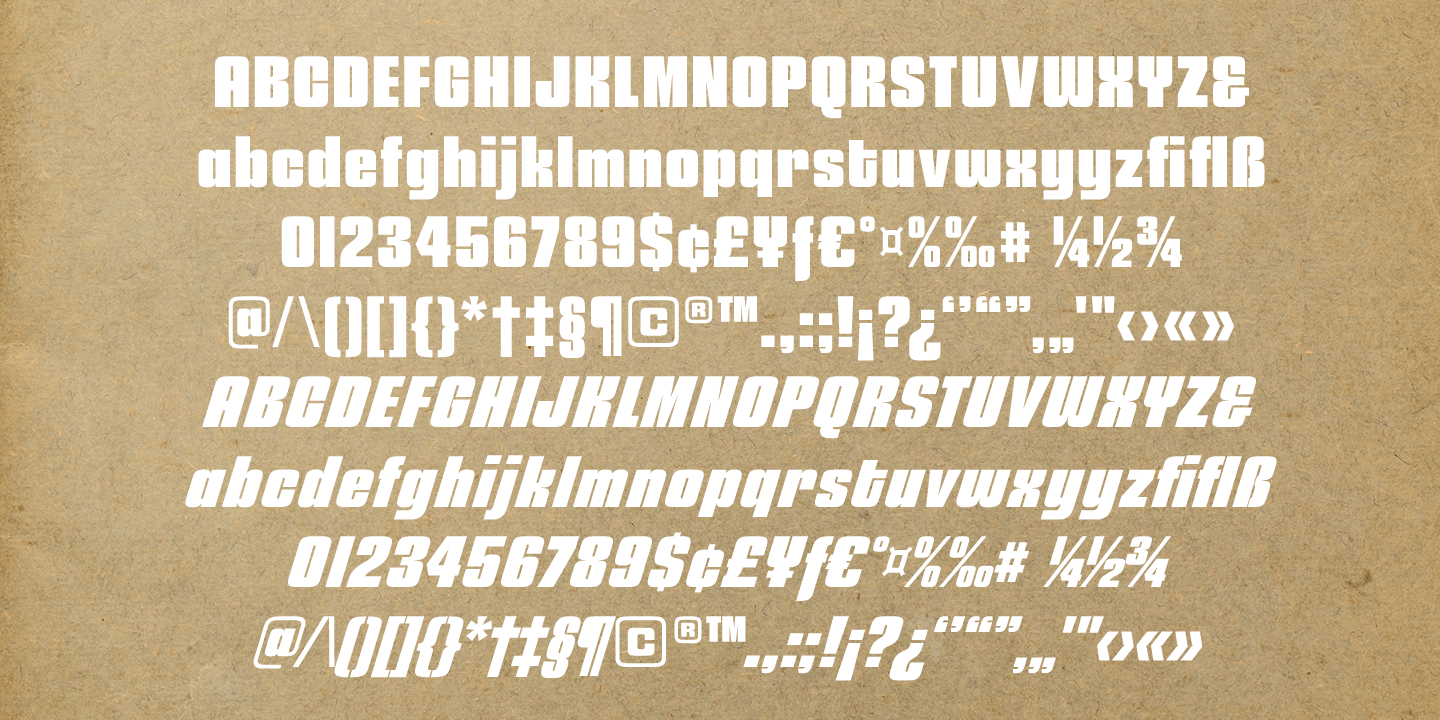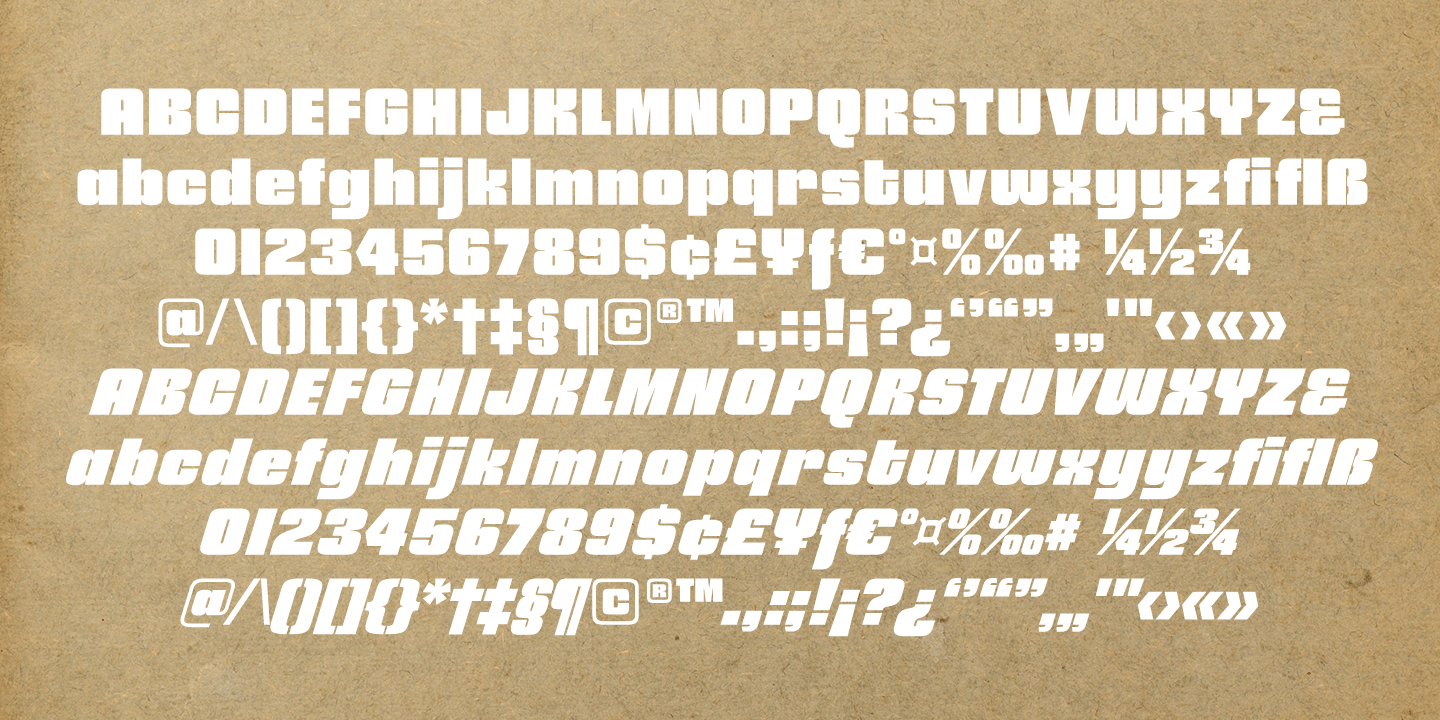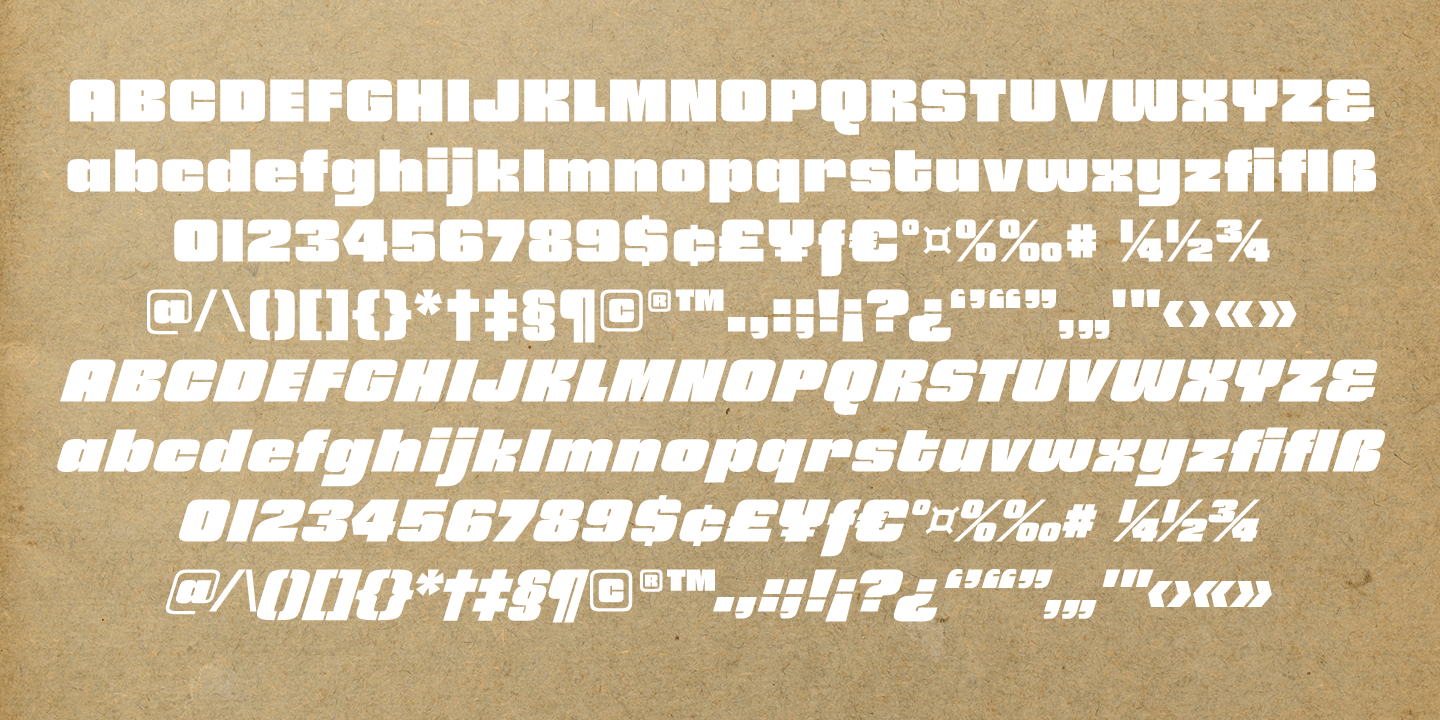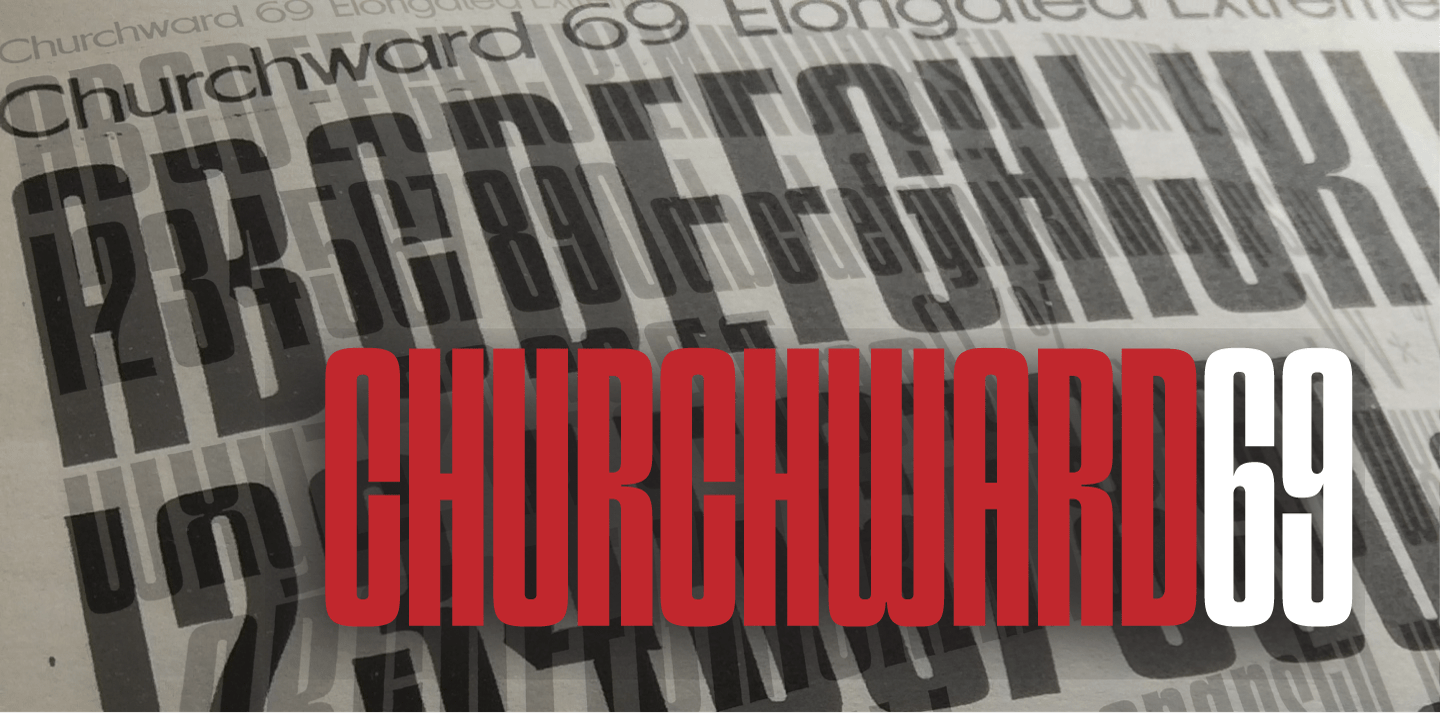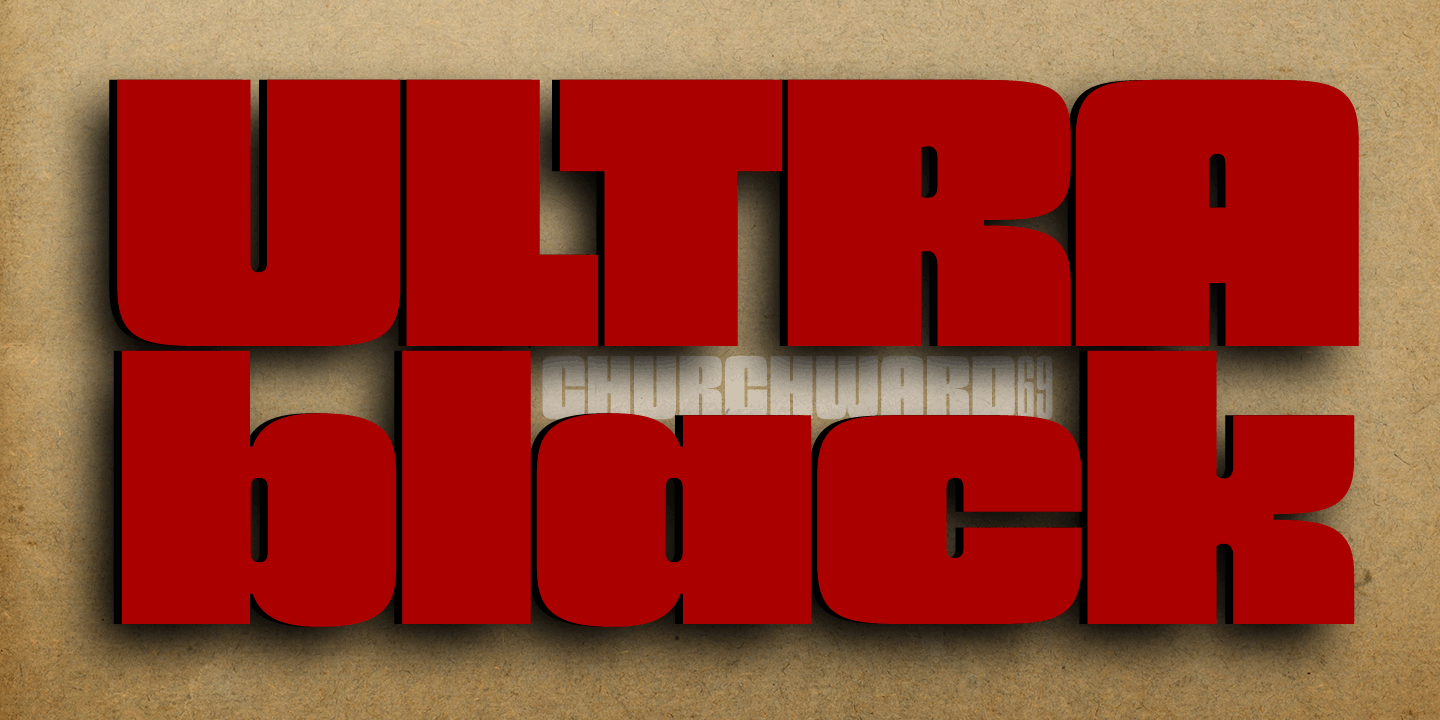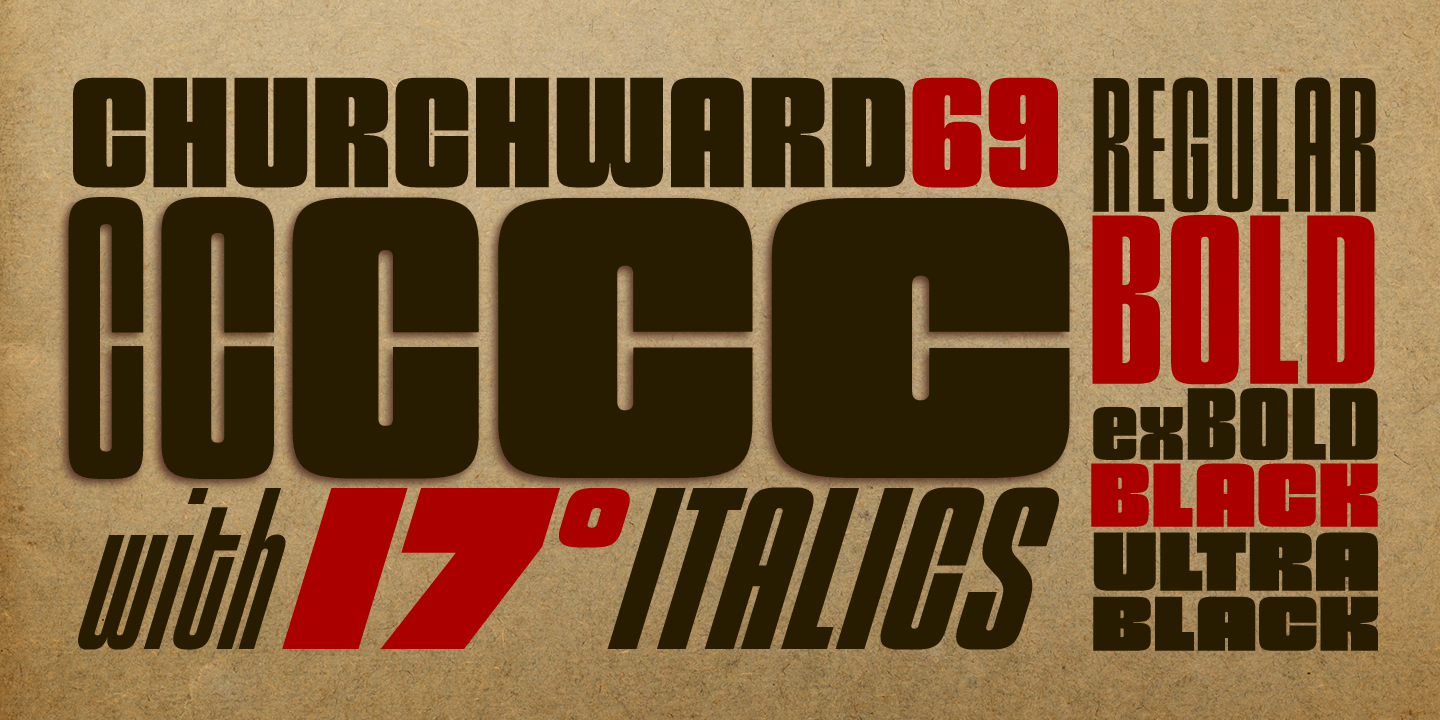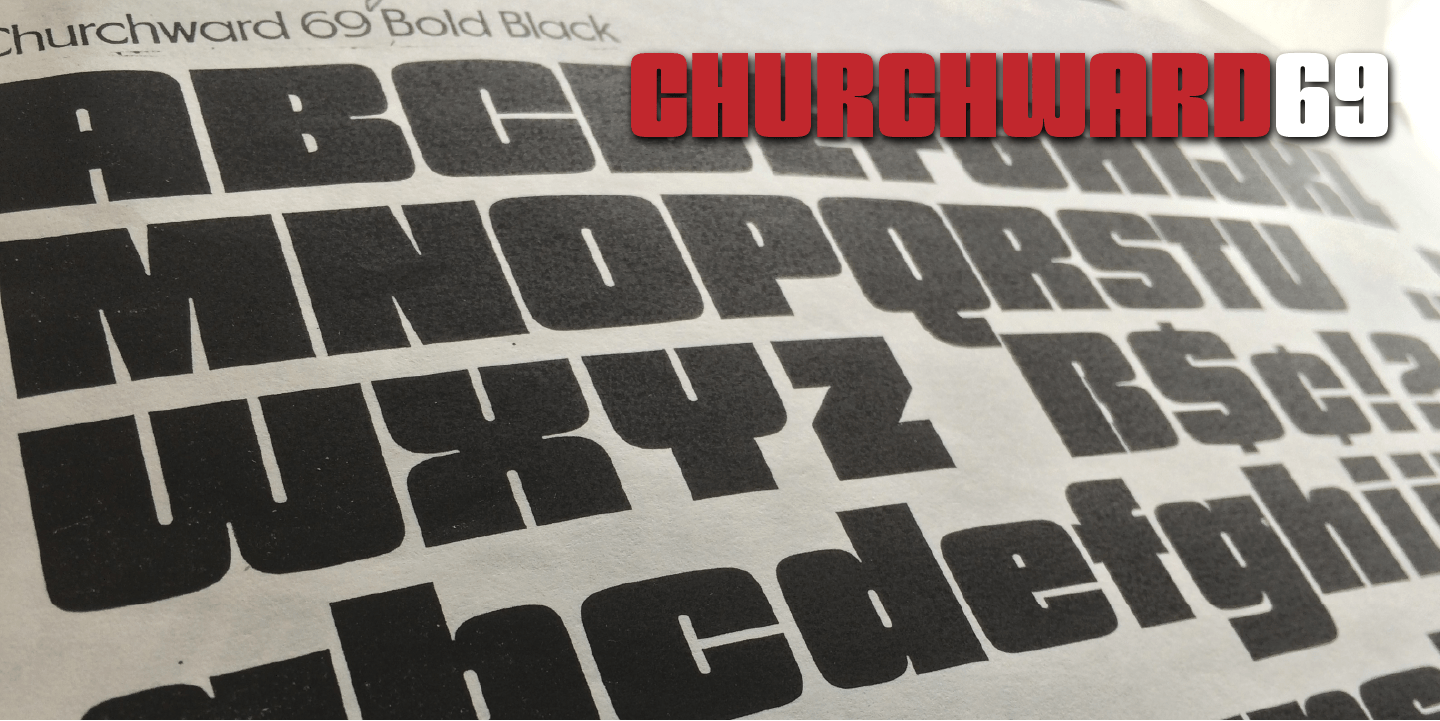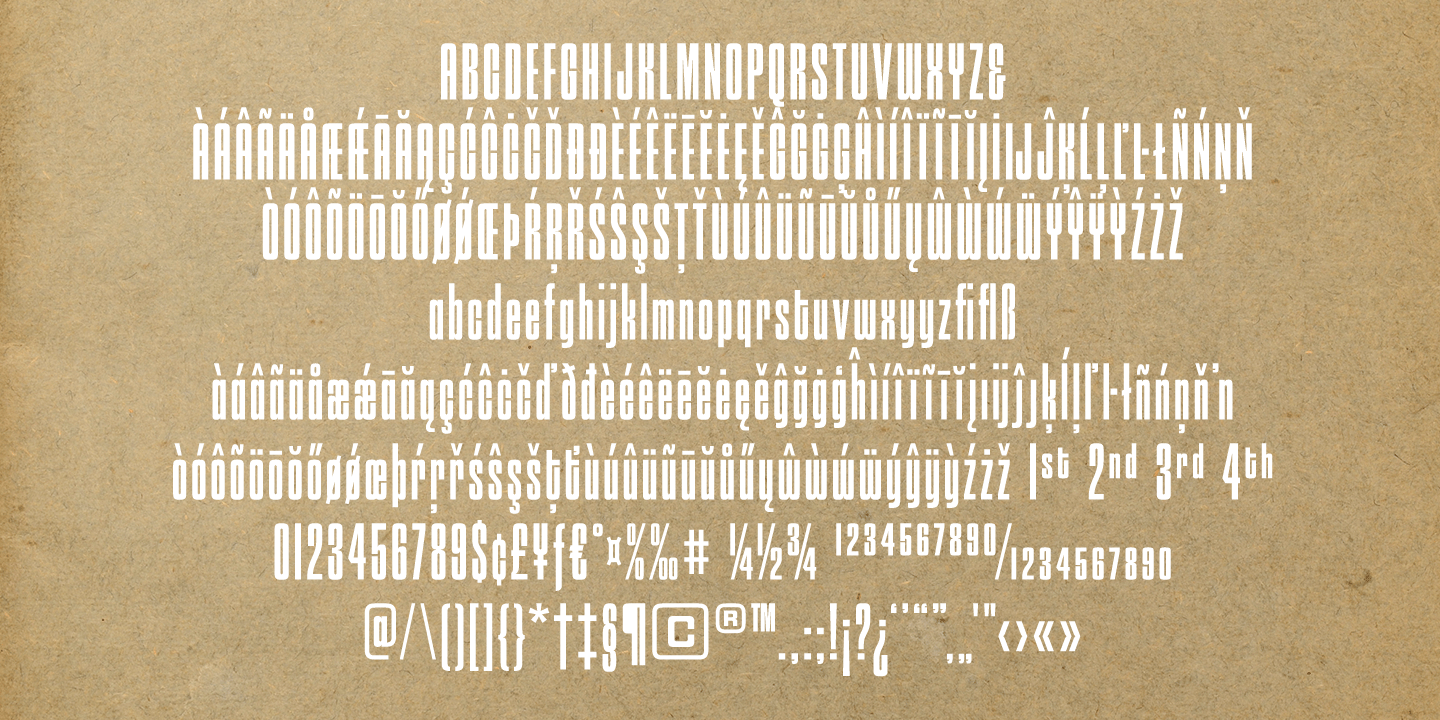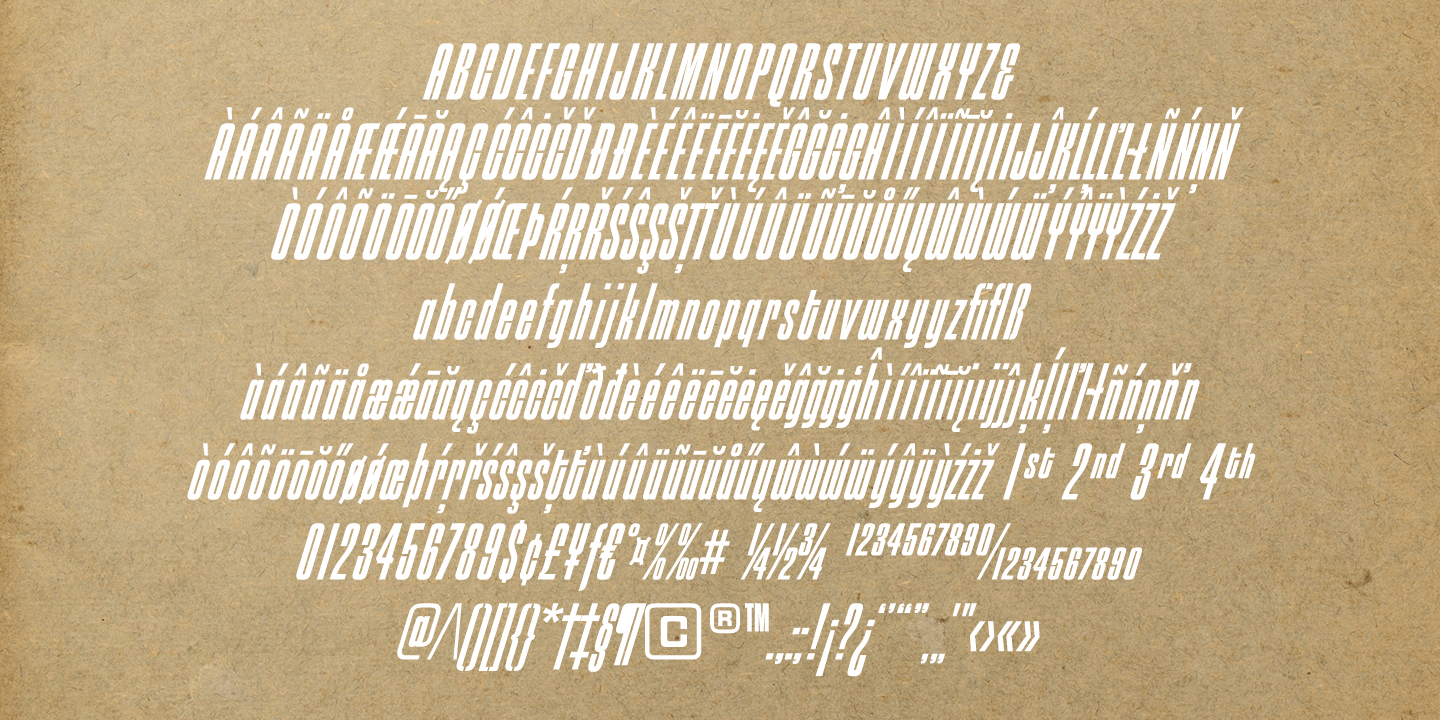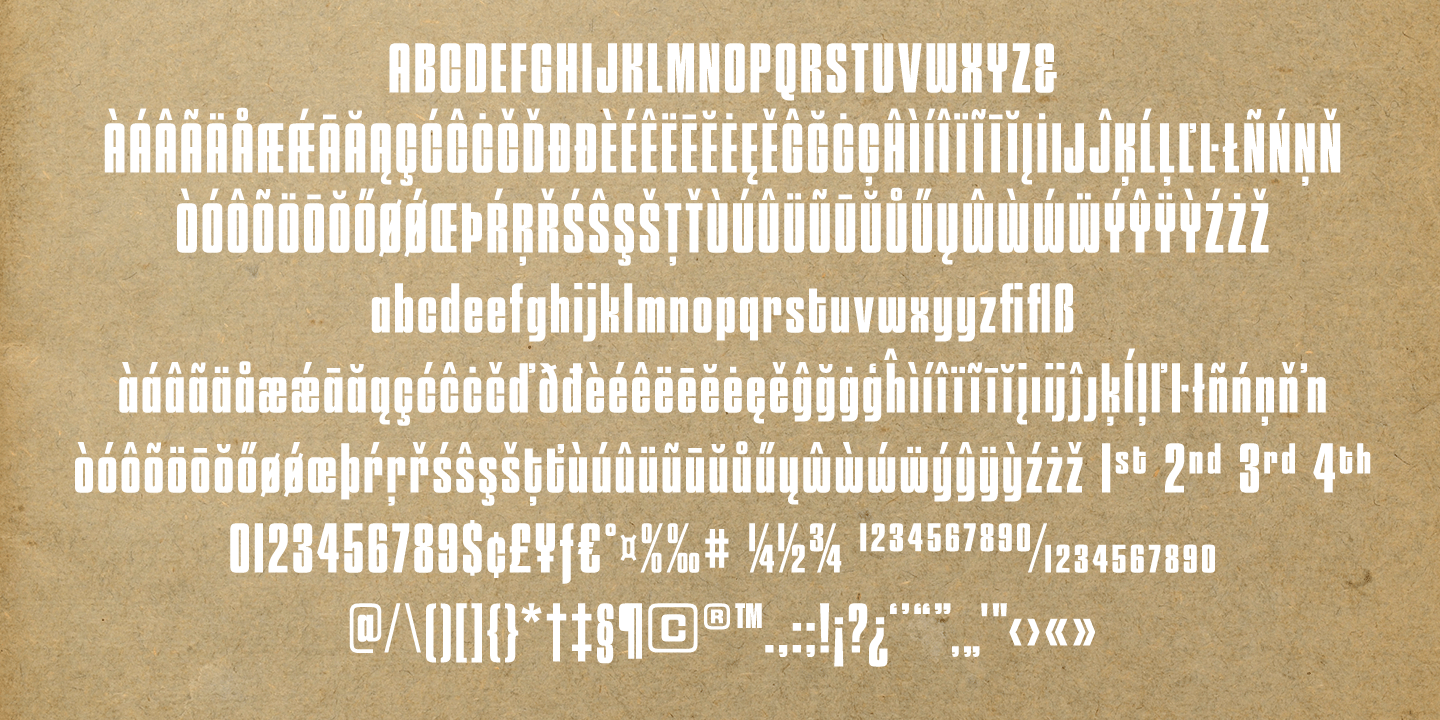
Churchward 69 Family
Churchward 69 is a ten weight typeface family originally designed during the late 1960's by the late type designer Joseph Churchward. From the extremely condensed Regular weight to the outlandishly heavy Ultra Black, this square sans serif makes an audacious statement. Even the Italics are extreme at their 17 degree angle! Churchward 69 includes 5 weights, Regular, Bold, Extra Bold, Black, and the gorgeous Ultra Black, and their italics. Joseph sure knew how to draw heavy weights! All weights include OpenType features for superior and inferior figs, fractions, and tabular/proportional figure sets, and they all support an extended European character set.